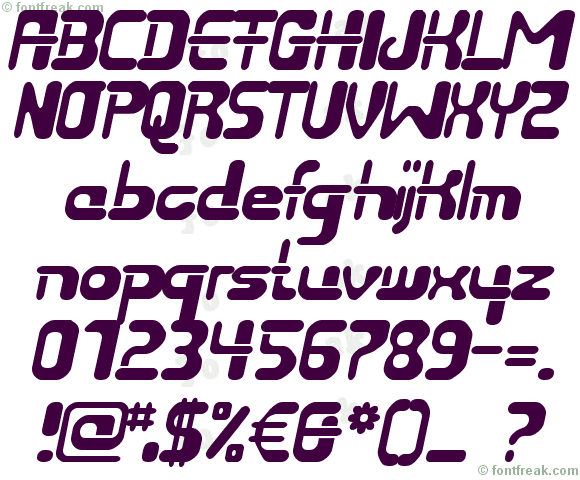
Bulgari
About Bulgari
The Bulgari font, designed by Dieter Schumacher in 1998 and offered as freeware by Fontmaker, is a striking display typeface that captures attention with its unique aesthetic. This font falls into the decorative category, characterized by its bold, geometric forms and dynamic strokes. The strokes exhibit a moderate weight, providing a balanced contrast that enhances readability while still delivering a modern flair. The carefully crafted spacing between characters allows for optimal legibility, making it suitable for various applications.
Bulgari's distinct visual style makes it an excellent choice for a range of creative projects. It works exceptionally well on wedding invitations, adding a touch of elegance and sophistication to any ceremony. Its bold presence is equally effective in movie posters, where it can capture the essence of a film's theme while garnering viewer interest. Restaurant menus can also benefit from the font's stylish design, attracting customers’ eyes and enhancing the dining experience. Additionally, graphic designers will find it useful for branding purposes, as it conveys a sense of uniqueness and creativity.
The target audience for the Bulgari font includes graphic designers, small business owners, and content creators who seek to elevate their visual communication. Its versatility allows it to be adapted across various media, making it a valuable asset in any designer's toolkit.
What sets the Bulgari font apart is its combination of boldness and elegance, making it ideal for projects that require a statement without compromising sophistication. With the option of a Bulgari font free download, creatives can easily access this remarkable typeface and incorporate it into their work, ensuring their designs are both striking and memorable.